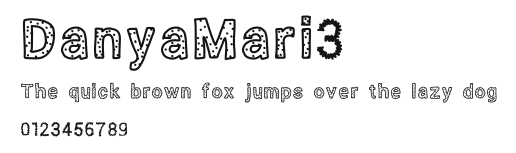
DanyaMari3 Preview
• Font Name: DanyaMari3
• Full Font Name: DanyaMari3
• PostScript Name: DanyaMari3
About DanyaMari3.ttf
DanyaMari3.ttf is a modern, elegant sans-serif font designed for ultimate readability and visual harmony. Perfect for branding, headlines, web design, and print materials.